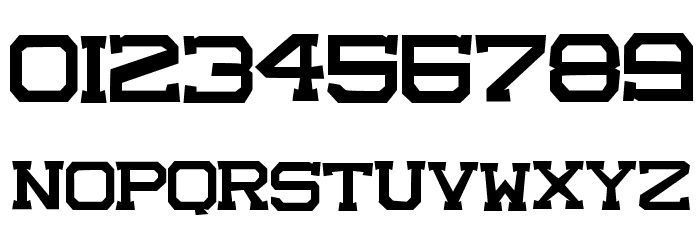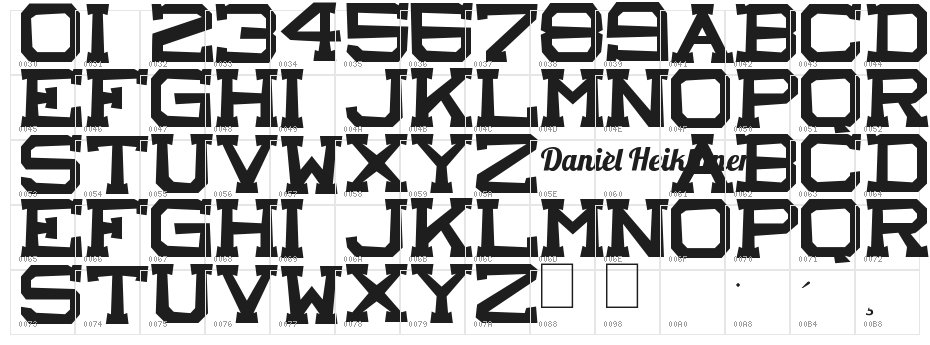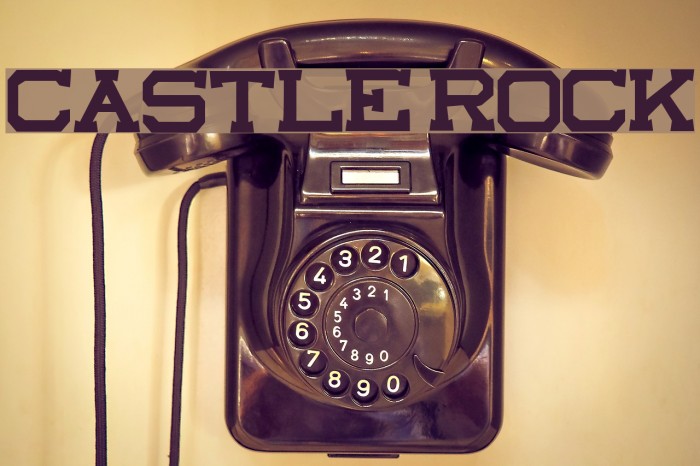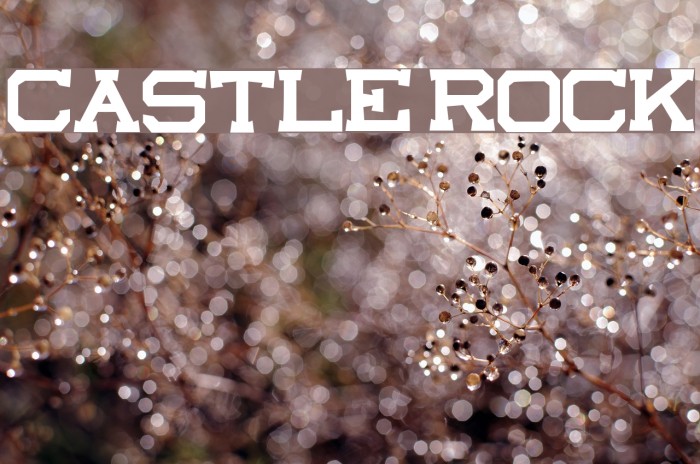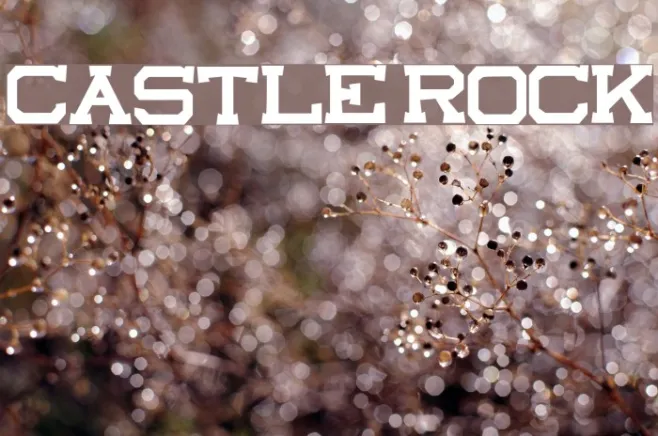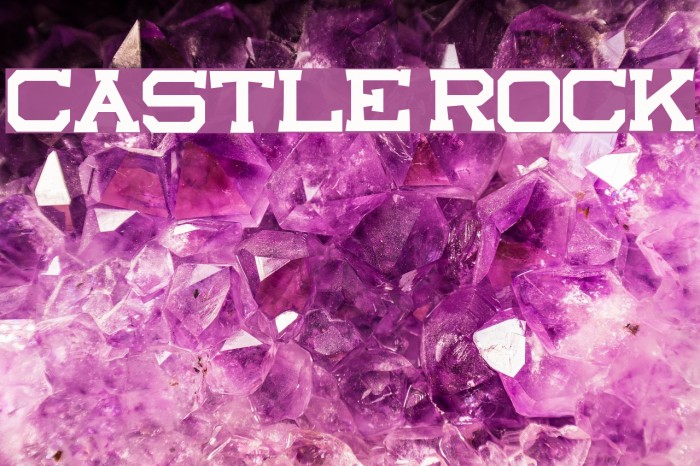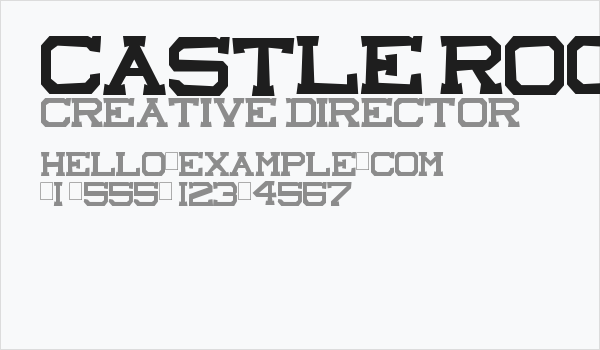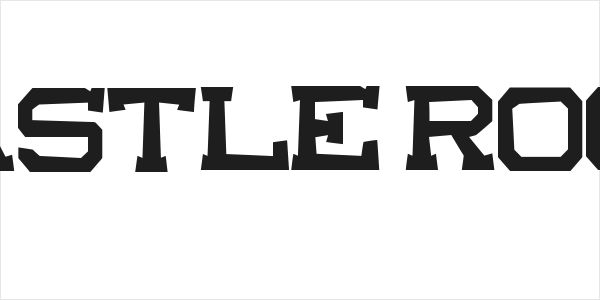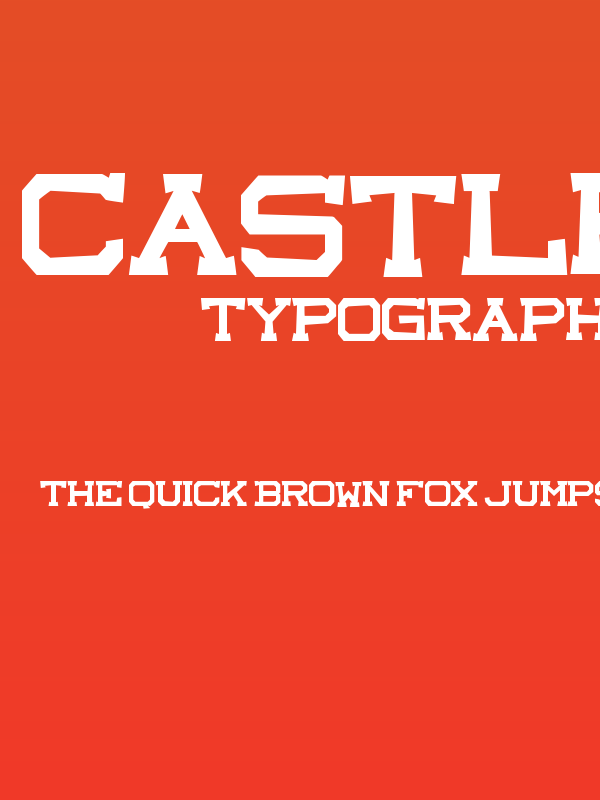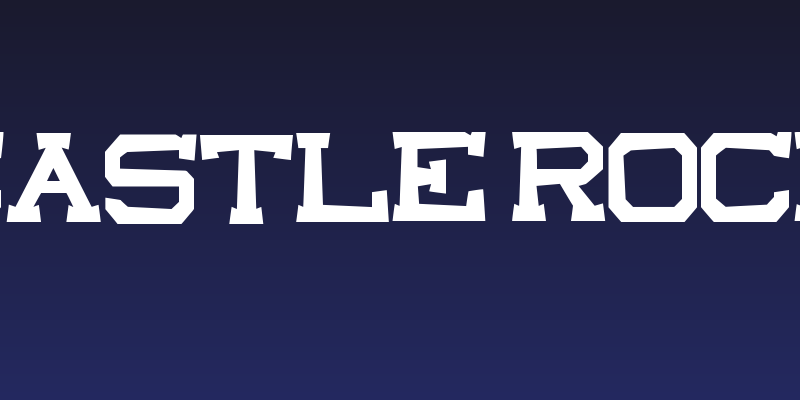
castle rock Font
castle rock Description
This font features a bold, geometric design with a strong presence. The characters are constructed with thick, angular lines that create a sense of strength and stability. The uppercase letters have a uniform height, while the numerals are equally robust, maintaining the font's cohesive appearance. The style is reminiscent of architectural elements, with a modern twist that makes it suitable for impactful headlines and branding. The font's distinct edges and corners give it a unique character, making it stand out in any design project.
| Proposed Projects | Ideal for branding, headlines, posters, and any design requiring a bold, impactful typeface. |